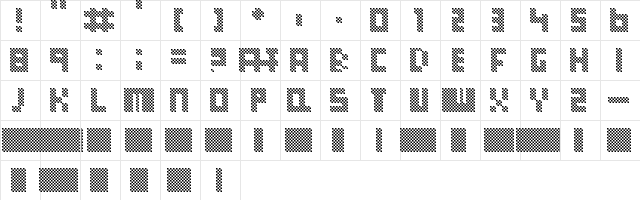
28 Sys Regular
Designer: johndoo
Design Context for 28 Sys
28 Sys is a composed and adaptable typeface that performs quietly and consistently across a wide range of design contexts.
Pro Tip: Use 28 Sys in both headline and body roles to test its range before committing to a single application.